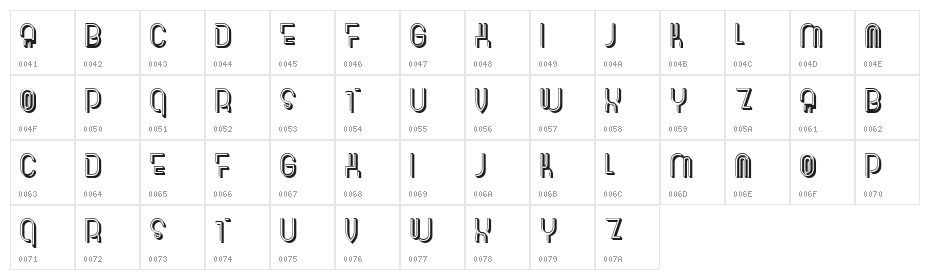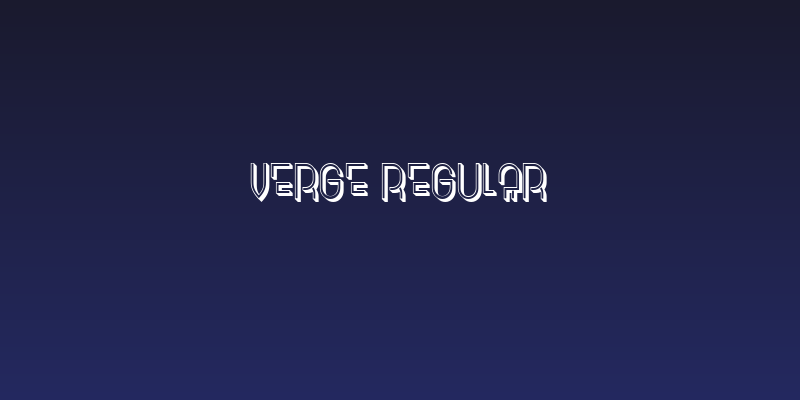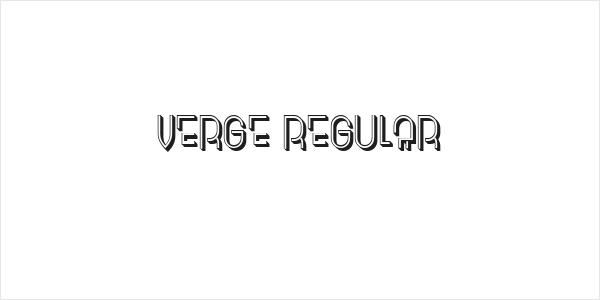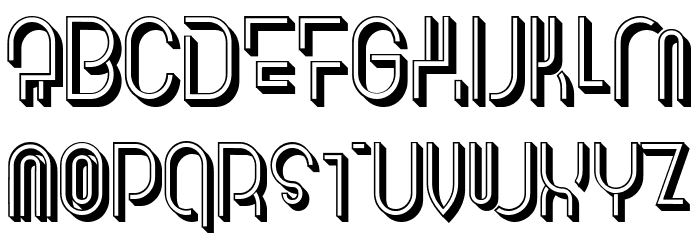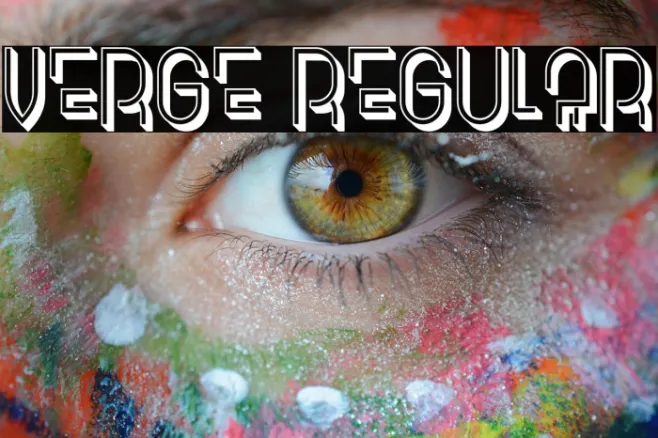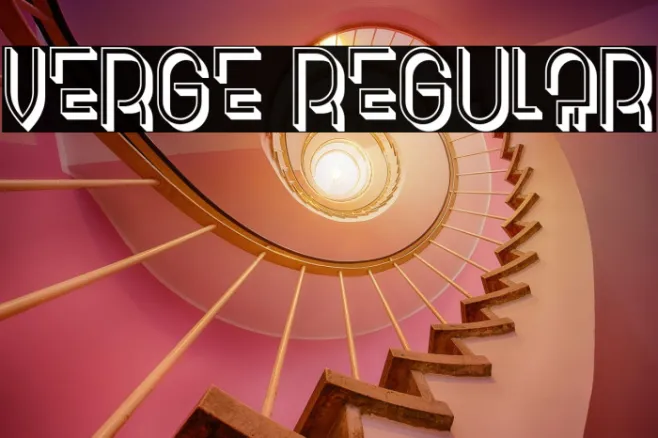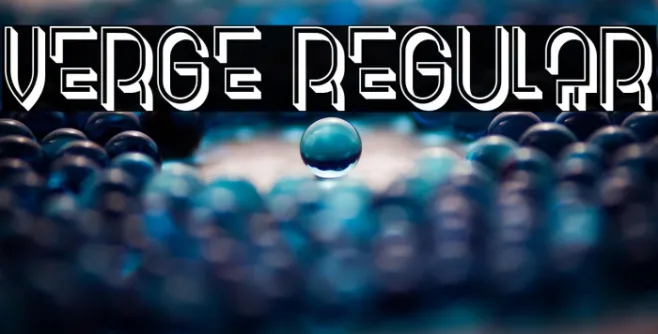
Verge Regular Font
Verge Regular Description
This font features a bold, geometric design with a three-dimensional effect created by its layered outlines. The characters are uppercase and exhibit a modern, futuristic style with clean lines and sharp angles. The font's unique structure gives it a dynamic and eye-catching appearance, making it suitable for creative and impactful design projects. The spacing between characters is consistent, providing a balanced and harmonious look. The font's boldness and distinct style make it ideal for headlines and display purposes, where attention-grabbing typography is essential.
| Proposed Projects | Ideal for posters, album covers, branding, and any project requiring a modern, eye-catching typeface. |